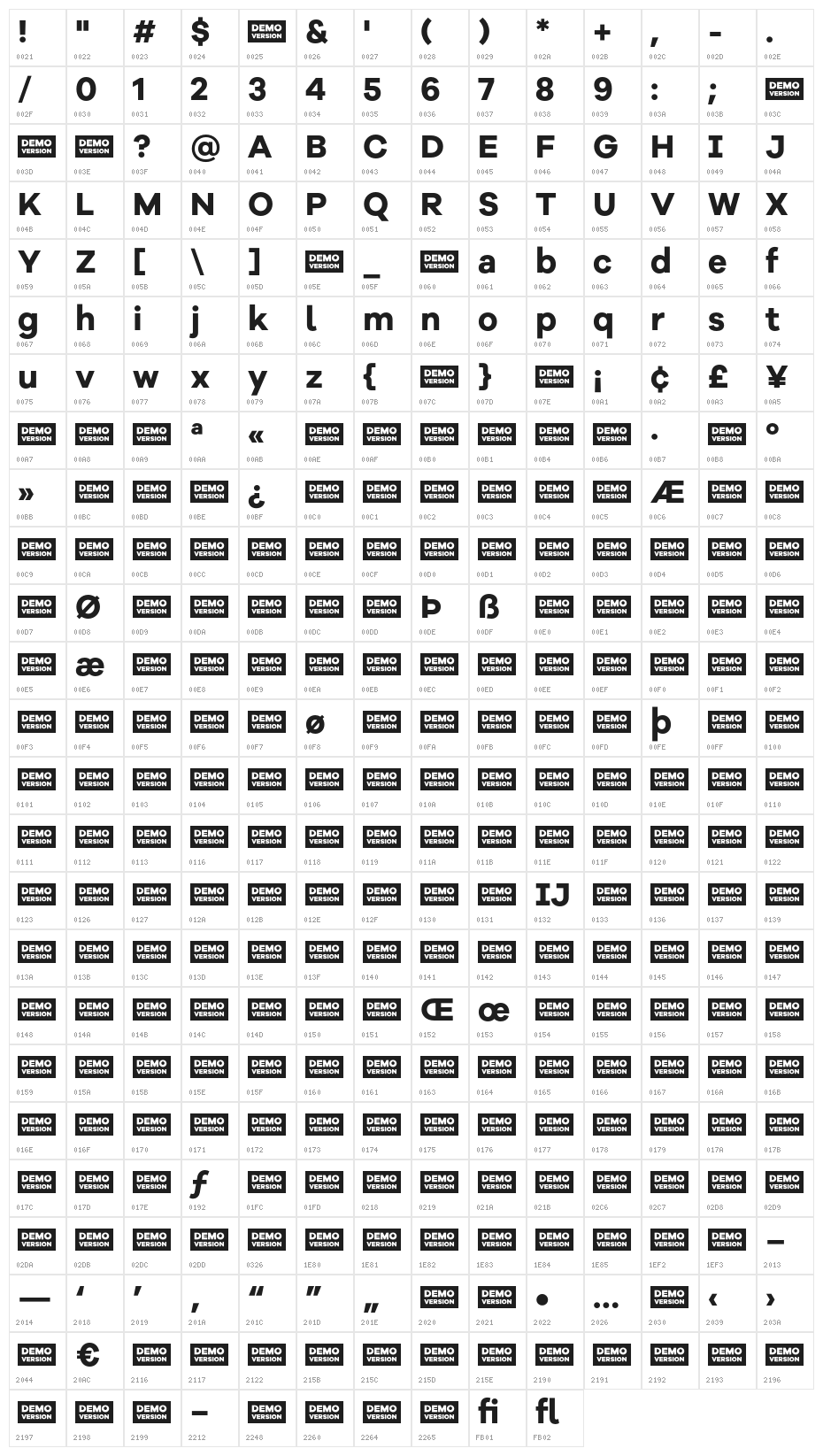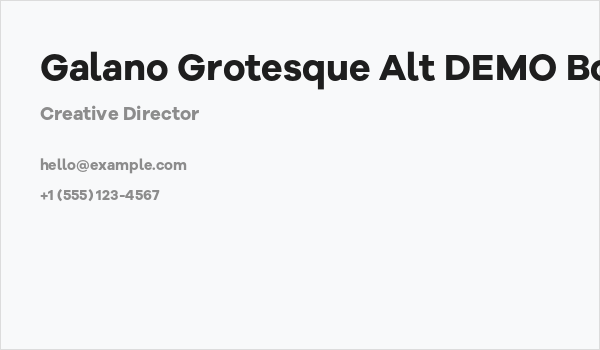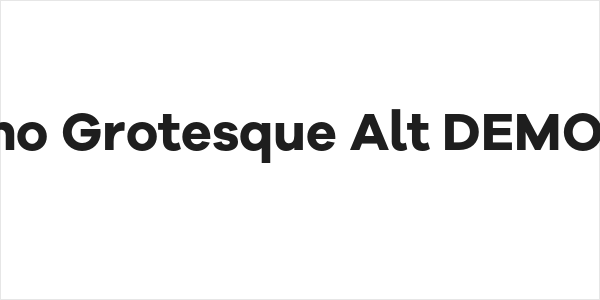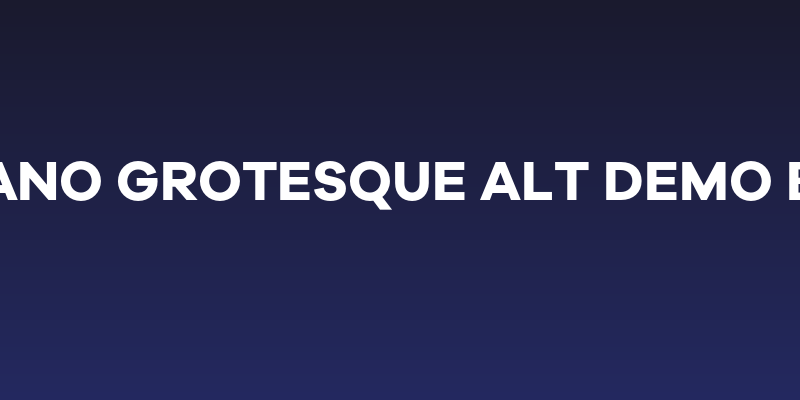
Galano Grotesque Alt DEMO Bold Font
Galano Grotesque Alt DEMO Bold Description
This font exhibits a clean and modern sans-serif style, characterized by its bold and uniform stroke weight. The uppercase letters are strong and geometric, while the lowercase letters maintain a consistent and harmonious appearance. The numbers are clear and easily readable, making them suitable for various applications. Special characters are well-defined, adding to the font's versatility. The overall design is straightforward and impactful, ideal for making a statement in any design project.
| Proposed Projects | Ideal for branding, advertising, headlines, and digital media where a strong visual impact is desired. |